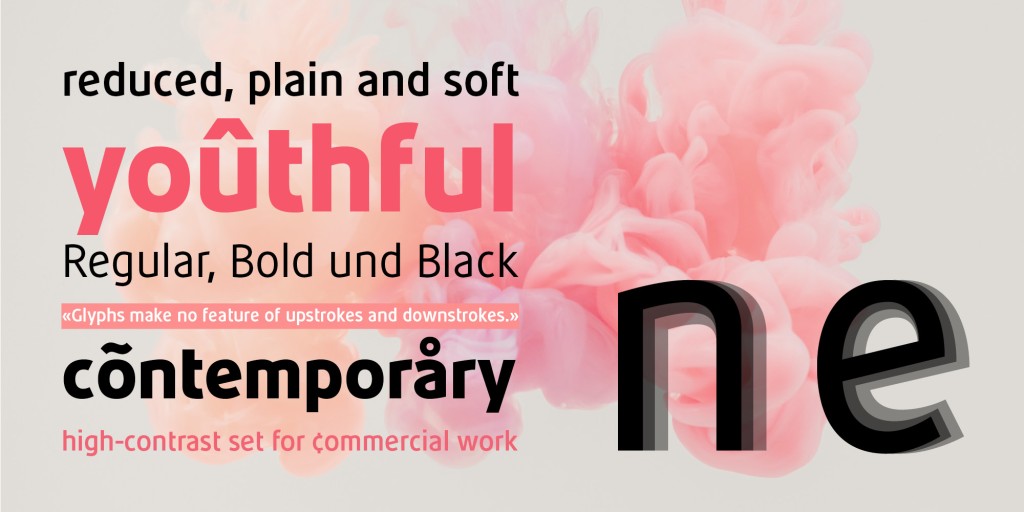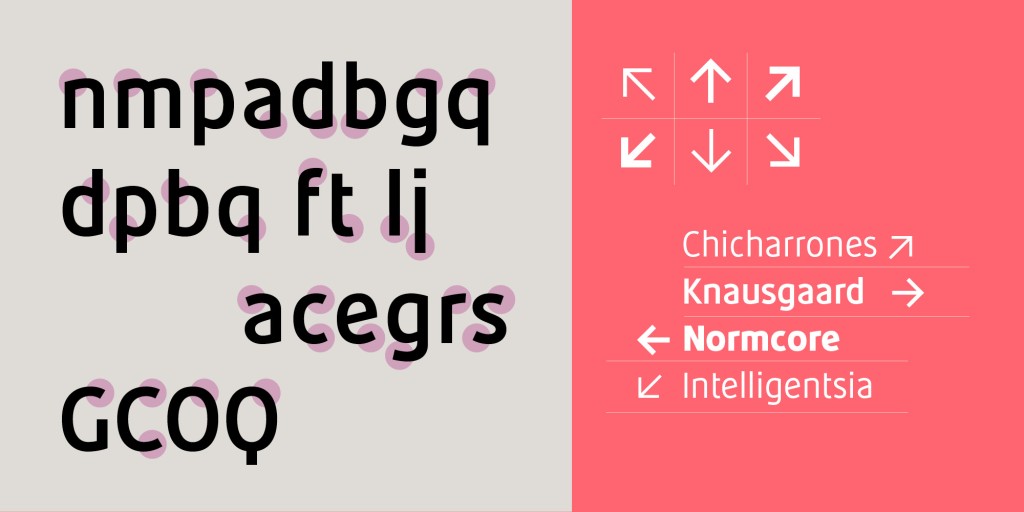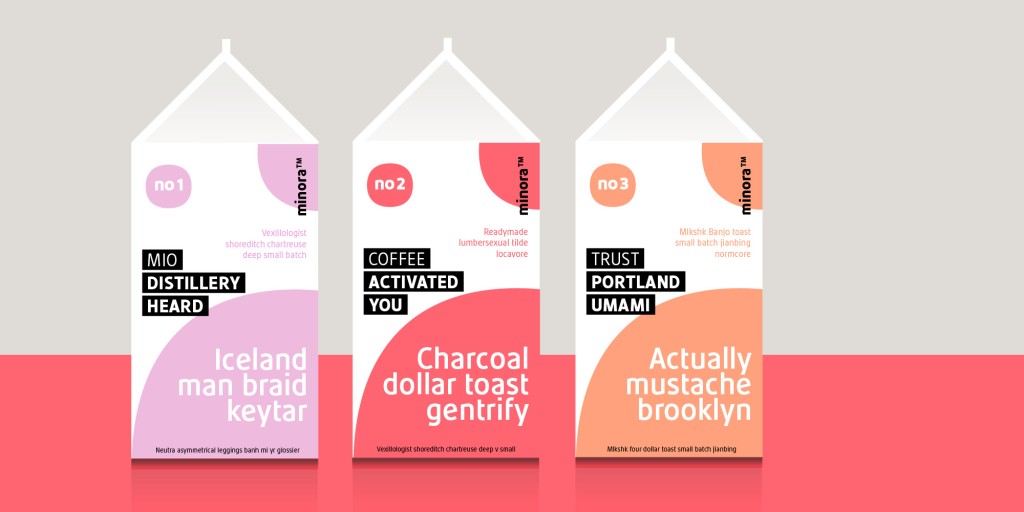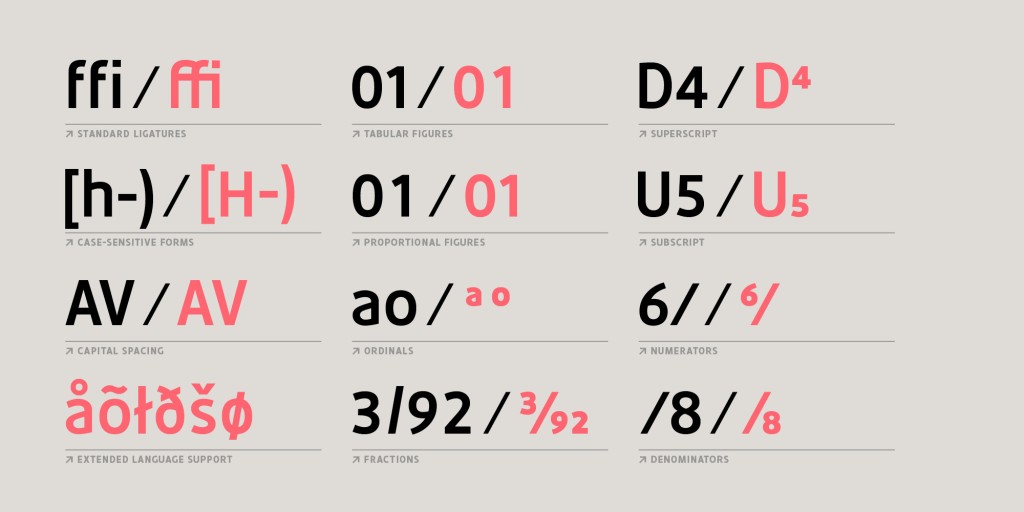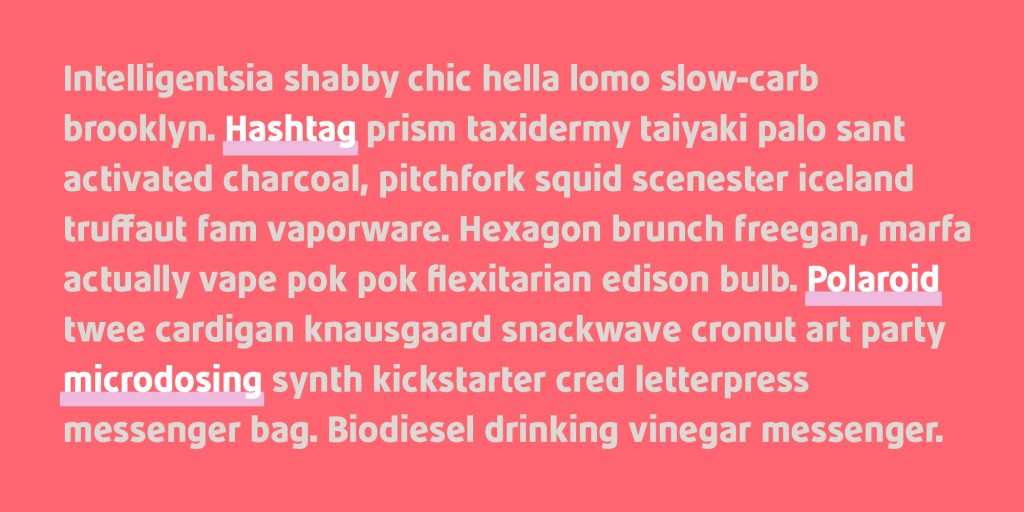
Minora
A distinctive display typeface with bold personality. Minora delivers maximum impact for headlines, branding, and editorial applications.
Minora – Font Family designed by Alex Meier
Minora is a contemporary sans serif type family of three weights. Glyphs with open, plain and reduced forms are attributes of Minora. Several OpenType features allow different figure sets, fractions and more.
Minora had its beginning during Alex Meier’s Typedesign study (CAS Typedesign) at the ZHdK in Zurich (Switzerland). After graduation, Alex Meier continued working on this project in a shared studio with his former fellow student Dominique Kerber.